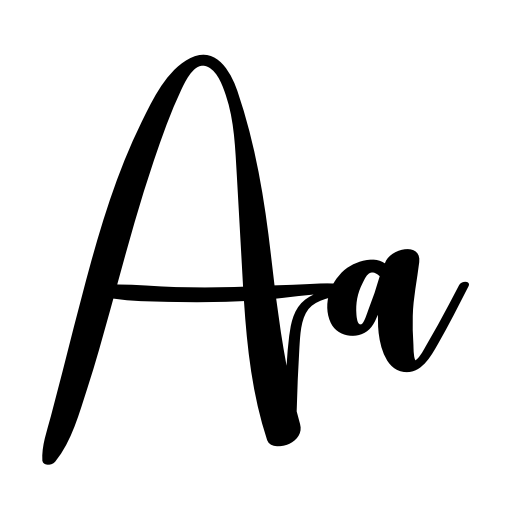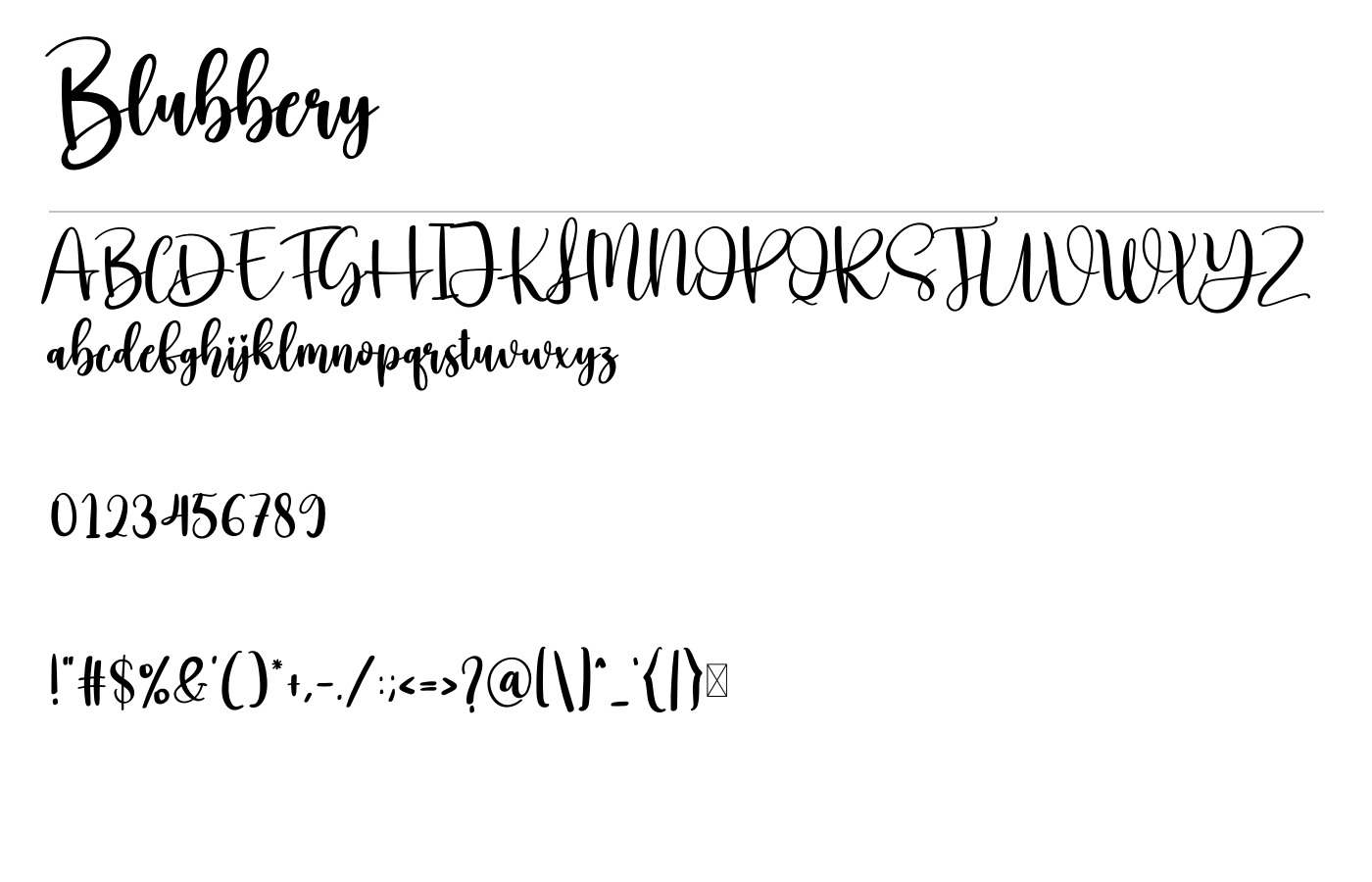
Blubbery is a playful and elegant handwritten script font with a lively, casual feel. Its smooth, flowing strokes combined with varied line thickness create a friendly and inviting style, perfect for adding a personal touch to invitations, branding, and creative projects. This font works well for designs that want to convey warmth and charm while maintaining readability and character.
About Blubbery Font